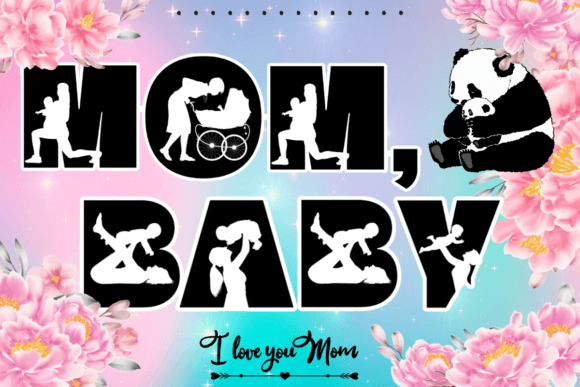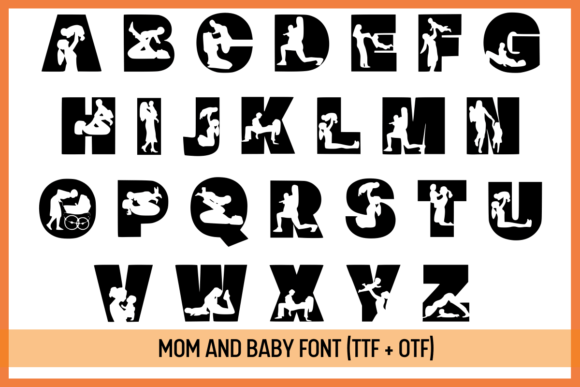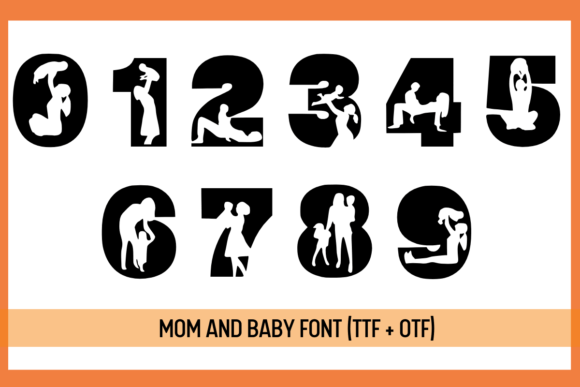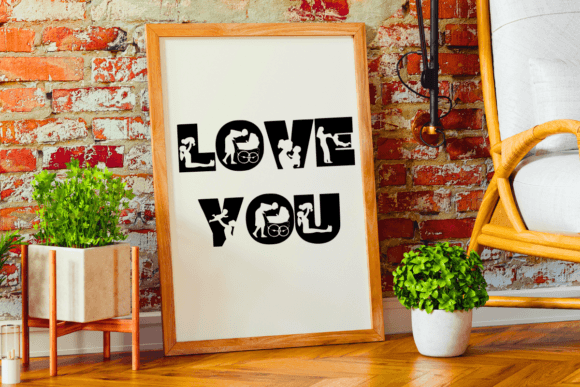
Mom and Baby Font
About the Mom and Baby Font
Meet Mom and Baby Font, a stunning font that brings a touch of elegance and professionalism to any design. Mom And Baby is an incredibly unique decorative font. Masterfully designed to become a true favorite, this font has the potential to bring each of your creative ideas to the highest level!
Mom and Baby’s decorative style is best suited for headlines, short text blocks in branding materials, and eye-catching elements in packaging design. Its unique forms make it ideal for projects needing a playful yet sophisticated touch, such as children’s products, boutique branding, or invitations. Avoid using it for body copy or long paragraphs; its decorative nature compromises readability in extended text.
The font’s personality is undeniably friendly and approachable, with a hint of vintage charm. This makes it unsuitable for applications requiring a serious or minimalist aesthetic, such as corporate reports or user interfaces.
Pairing Mom and Baby with a clean sans-serif like Open Sans for body text offers excellent contrast and balance. For a more elegant feel, consider pairing it with a classic serif font such as Garamond. A geometric sans-serif like Futura could also provide a modern counterpoint to its organic forms.
Mom and Baby Font Usage Examples
Mom and Baby Font Example